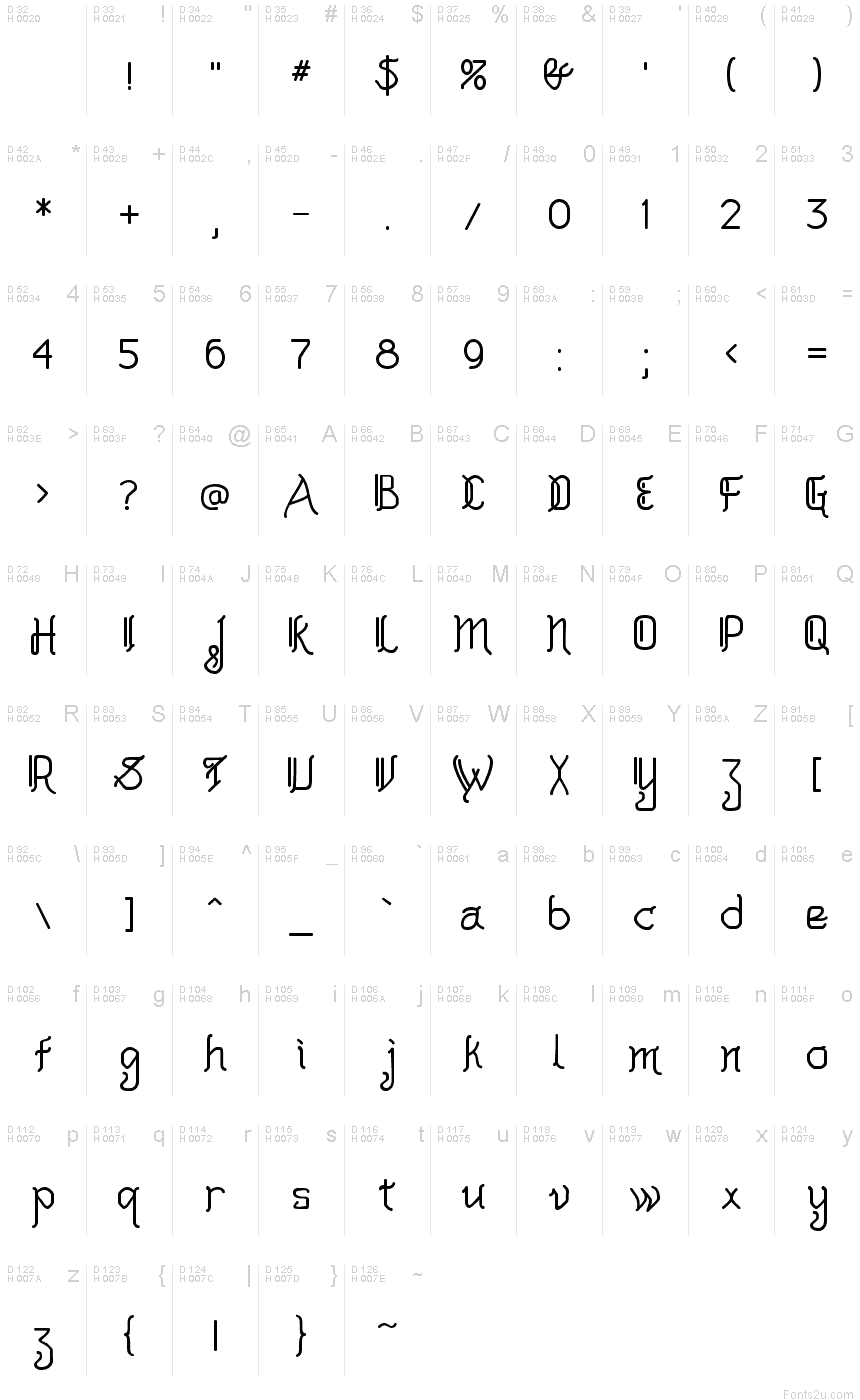
Akashi MF
Akashi MF font by Manfred Klein is a free decorative script typeface that twists calligraphy into something a bit darker and more enigmatic. Its narrow strokes curl and hook like ink drawn with a sharp brush, giving every word a slightly haunted, storybook feel. Letters flow together with an irregular rhythm that feels hand-done rather than polished, so headlines have a vivid, almost whispered personality.
Using Akashi MF, you can bring that moody energy to fantasy book covers, game titles, band logos, goth or occult posters, bar or tattoo signage, and character-driven branding. This free font shines when you set it large and let the quirky curves breathe. For longer supporting text, pair Akashi MF with a simple geometric sans to keep layouts readable while the script holds the spotlight.